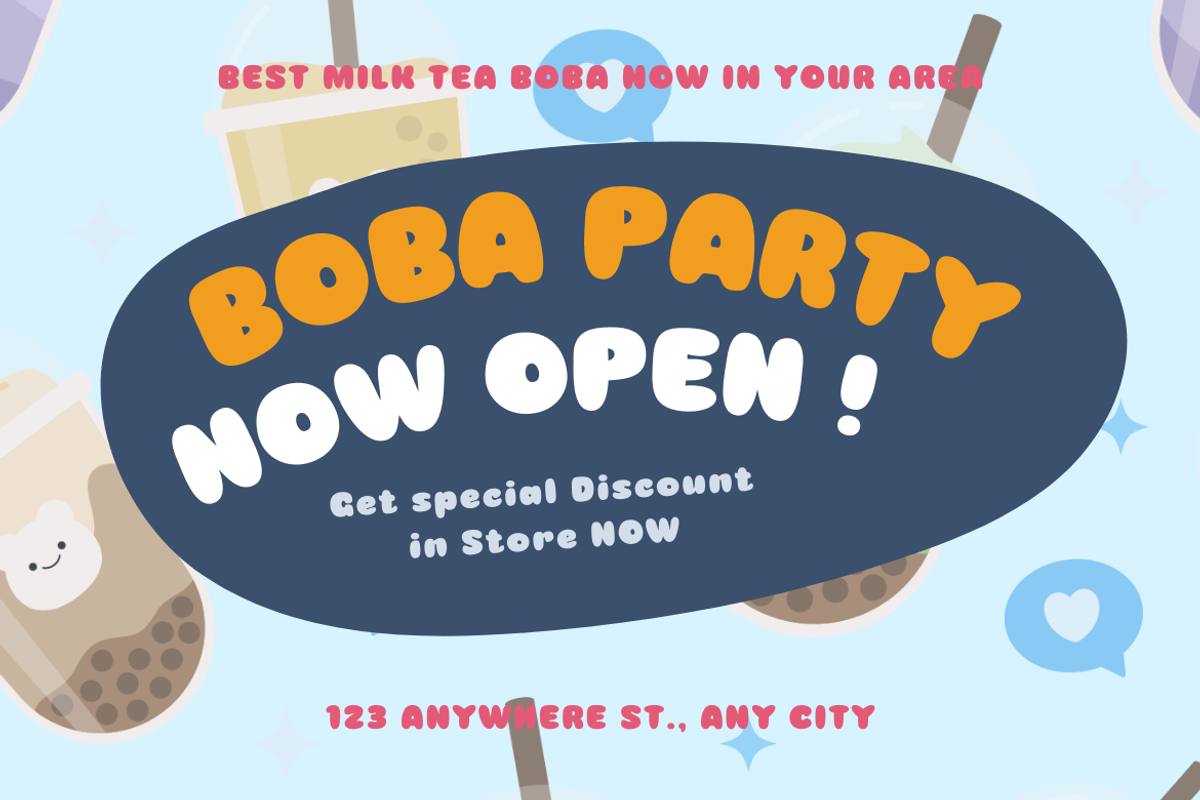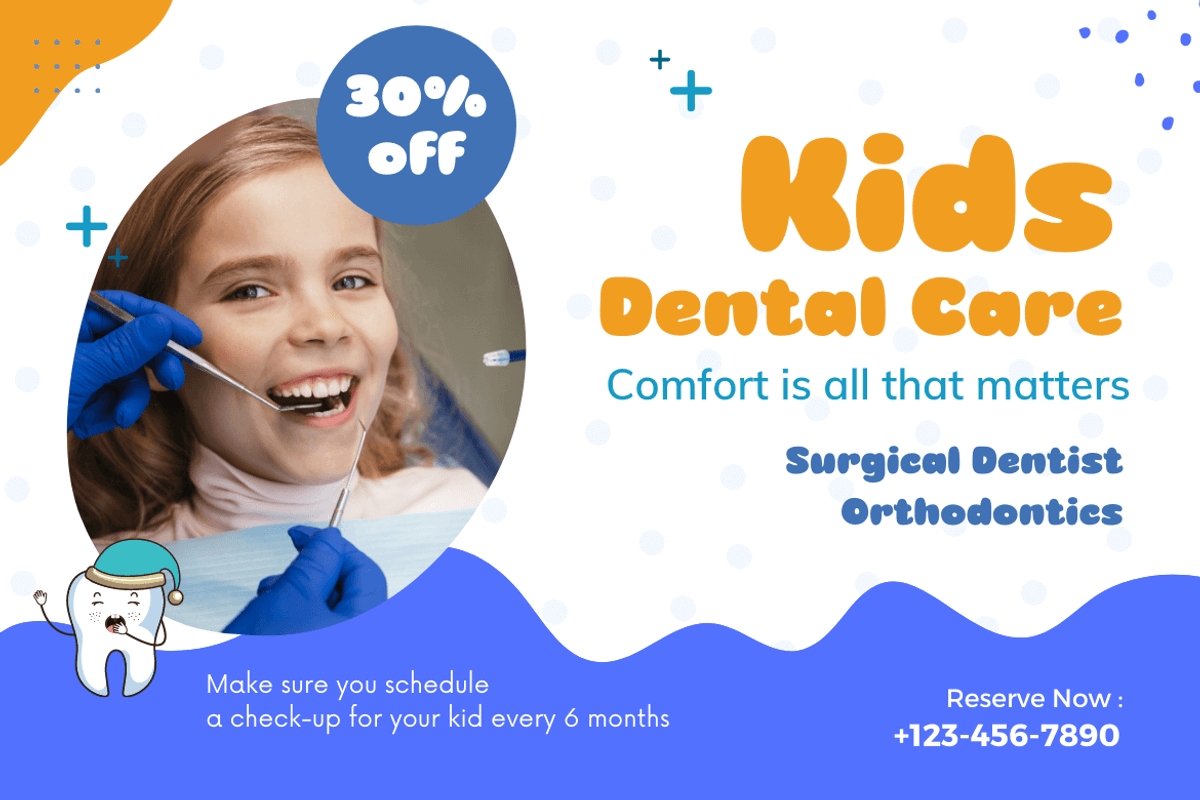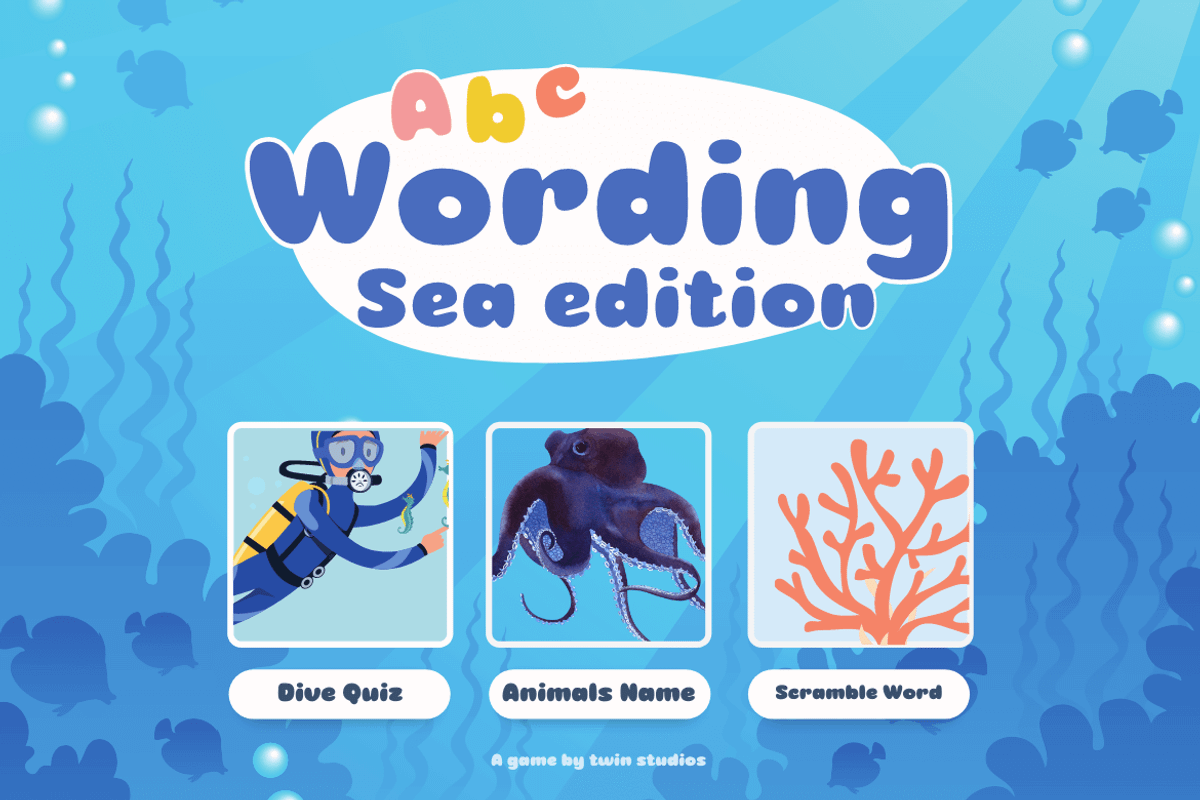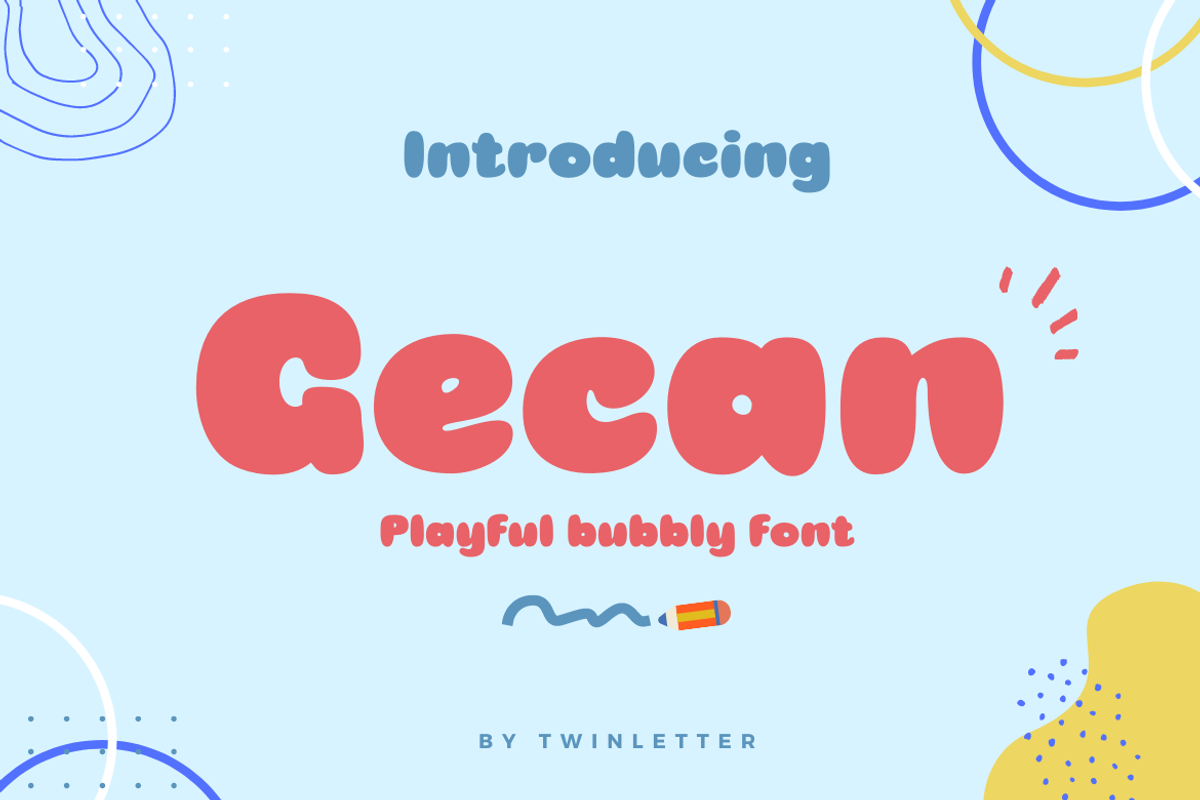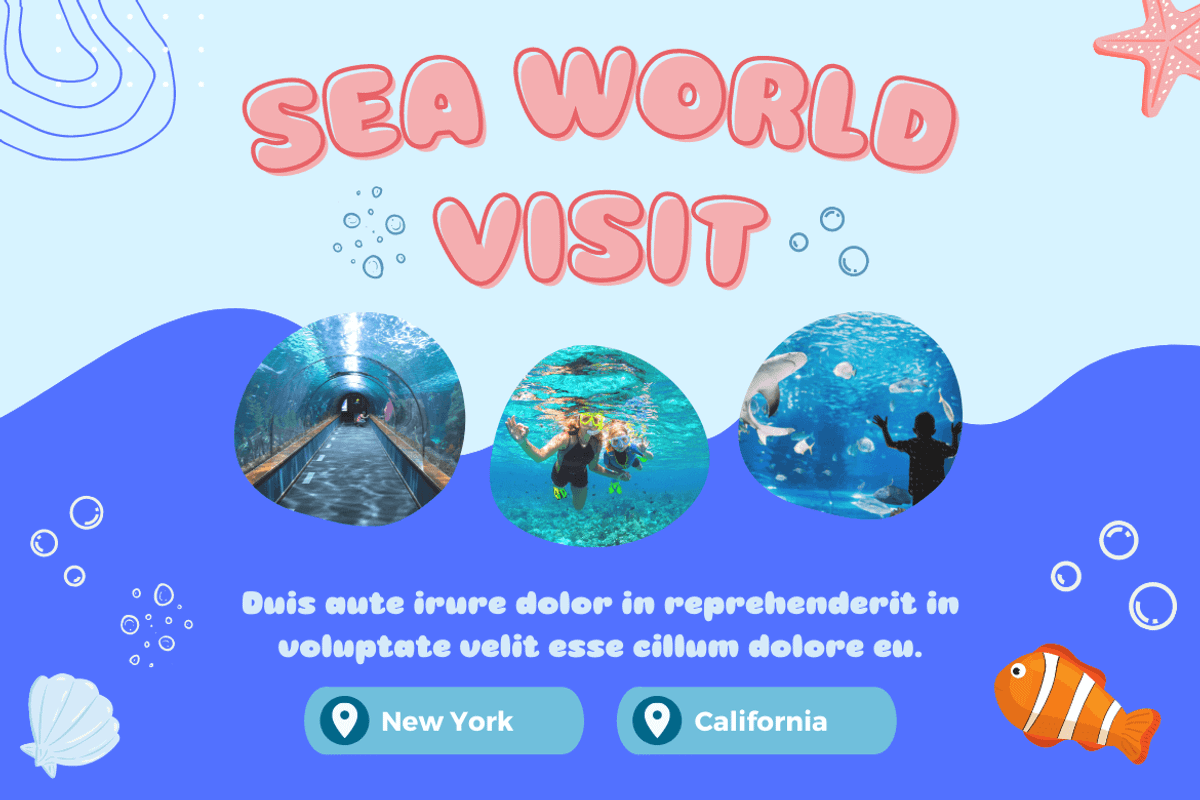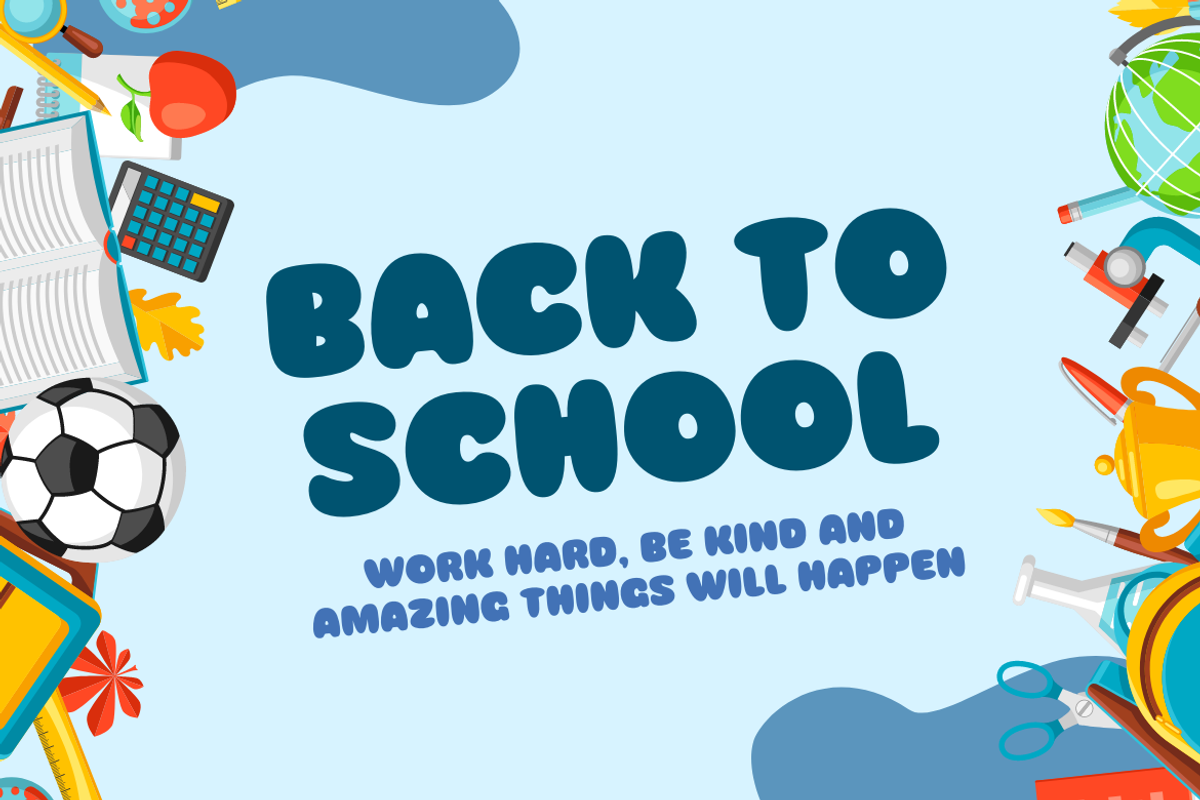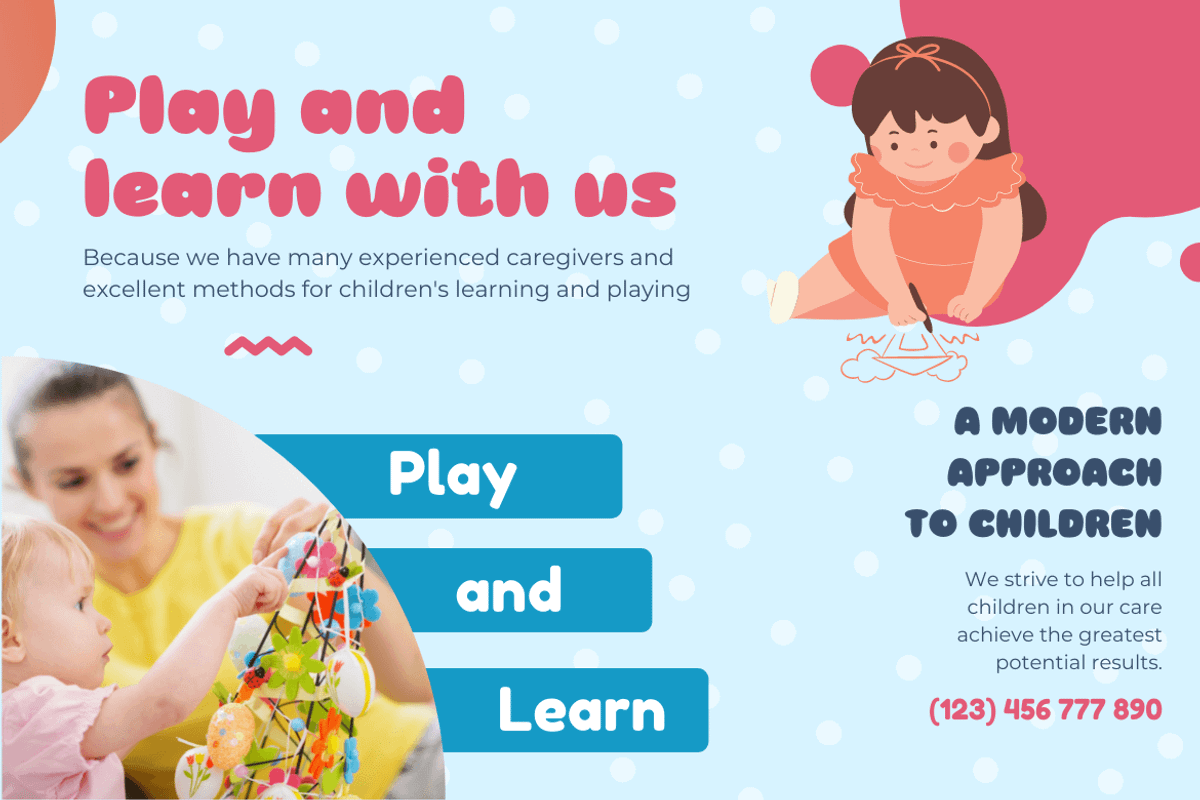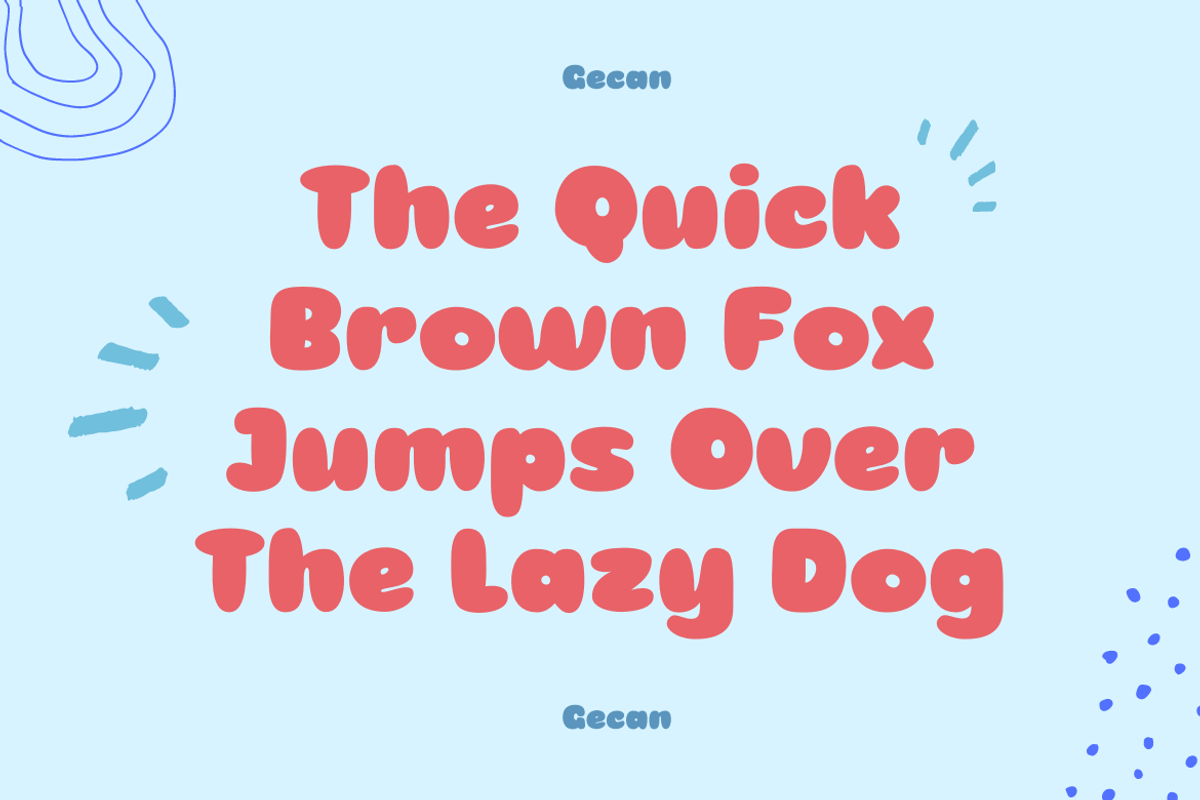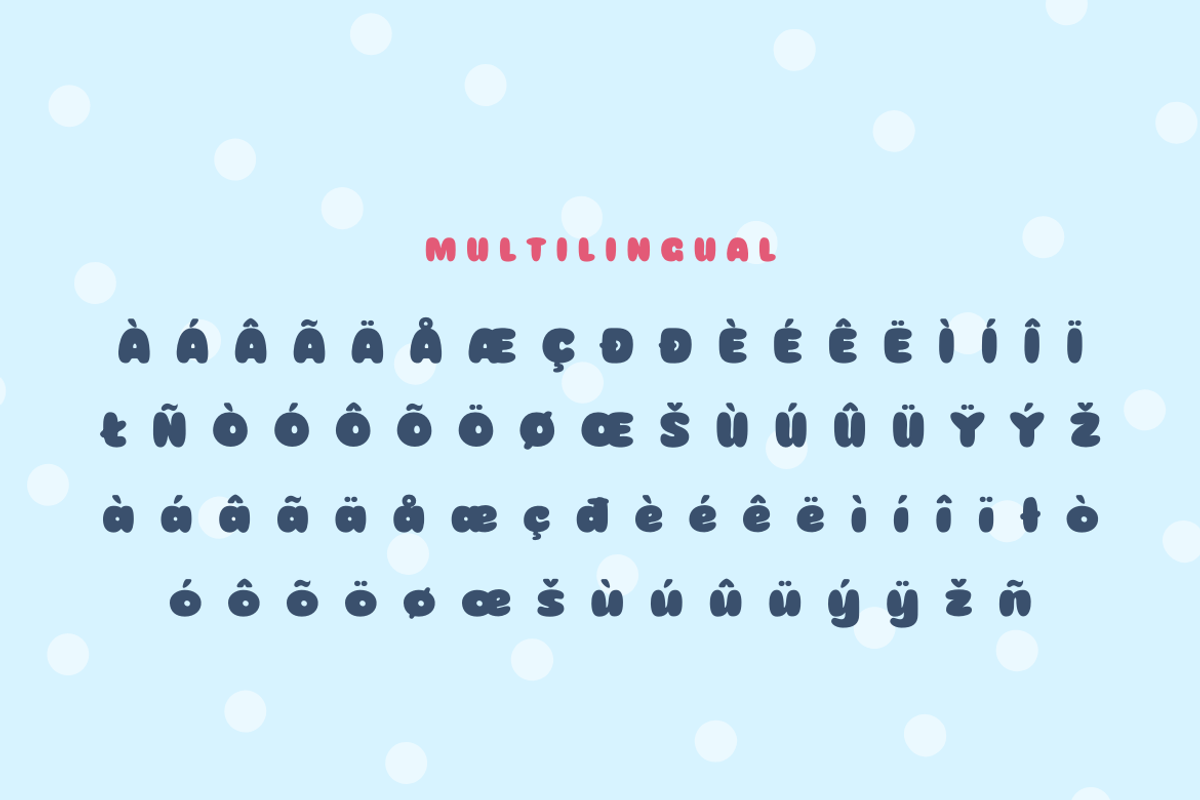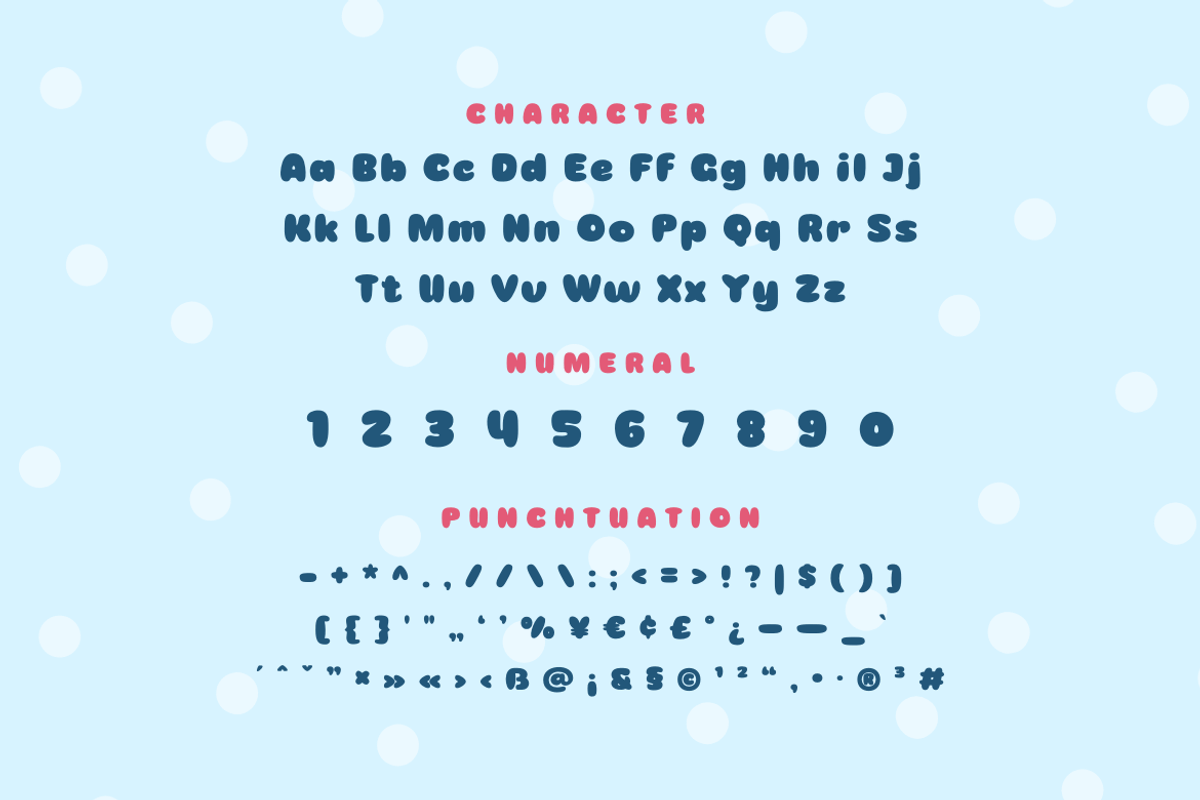
Gecan
Gecan, our newest font, is now available. This display font is designed in a straightforward and approachable style. The letters have a beautiful curve to them, giving them a lovely appearance when used. This style is ideal for any design that calls for a contemporary or handcrafted feel. Logos, labels, packaging, greeting cards, comics, banners, titles, and more can all benefit from it.